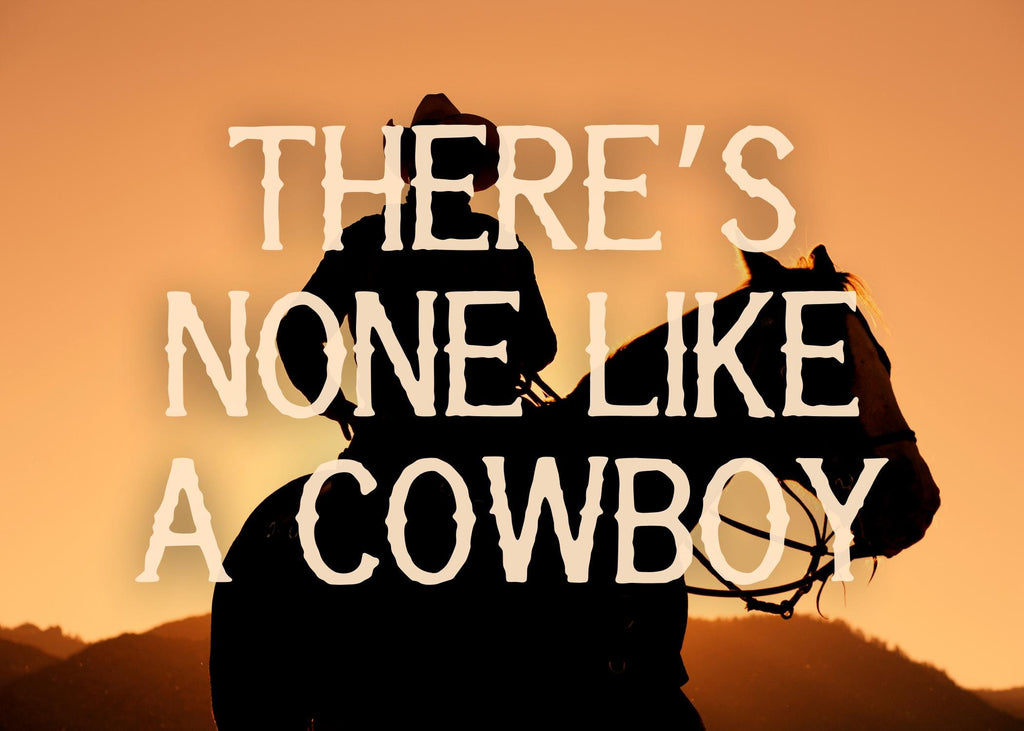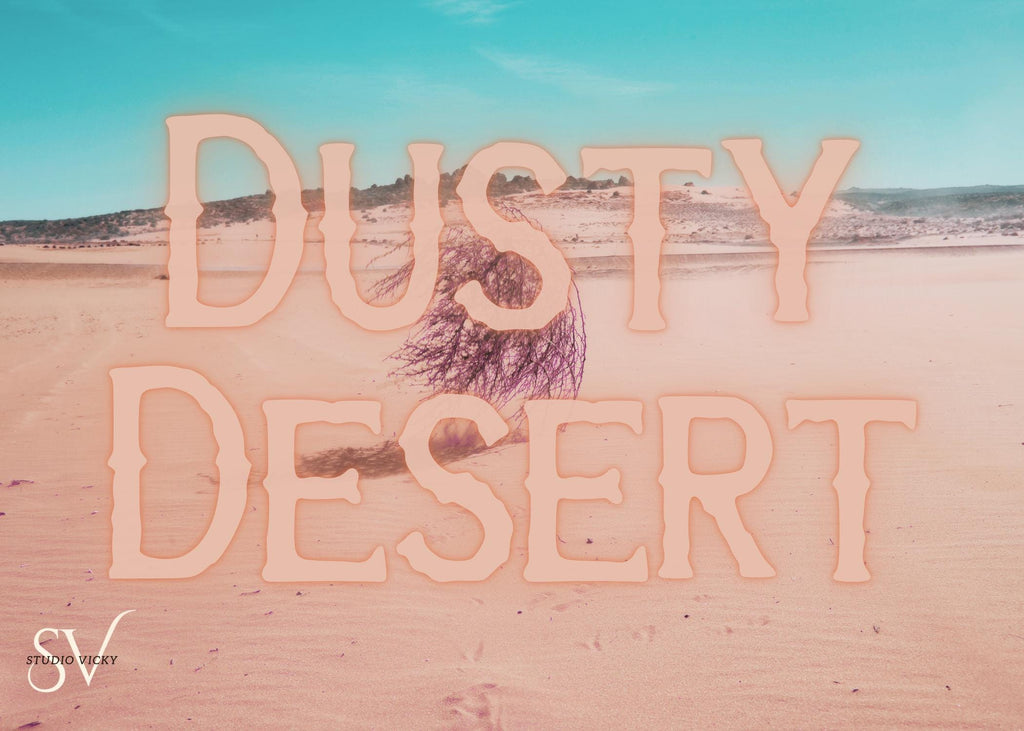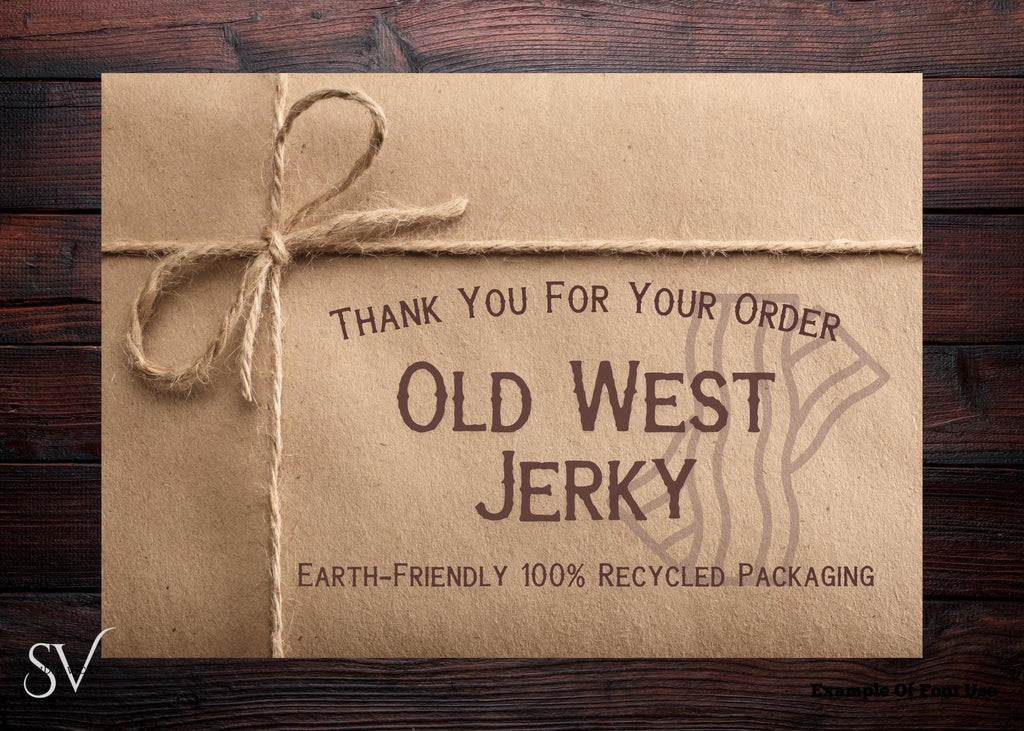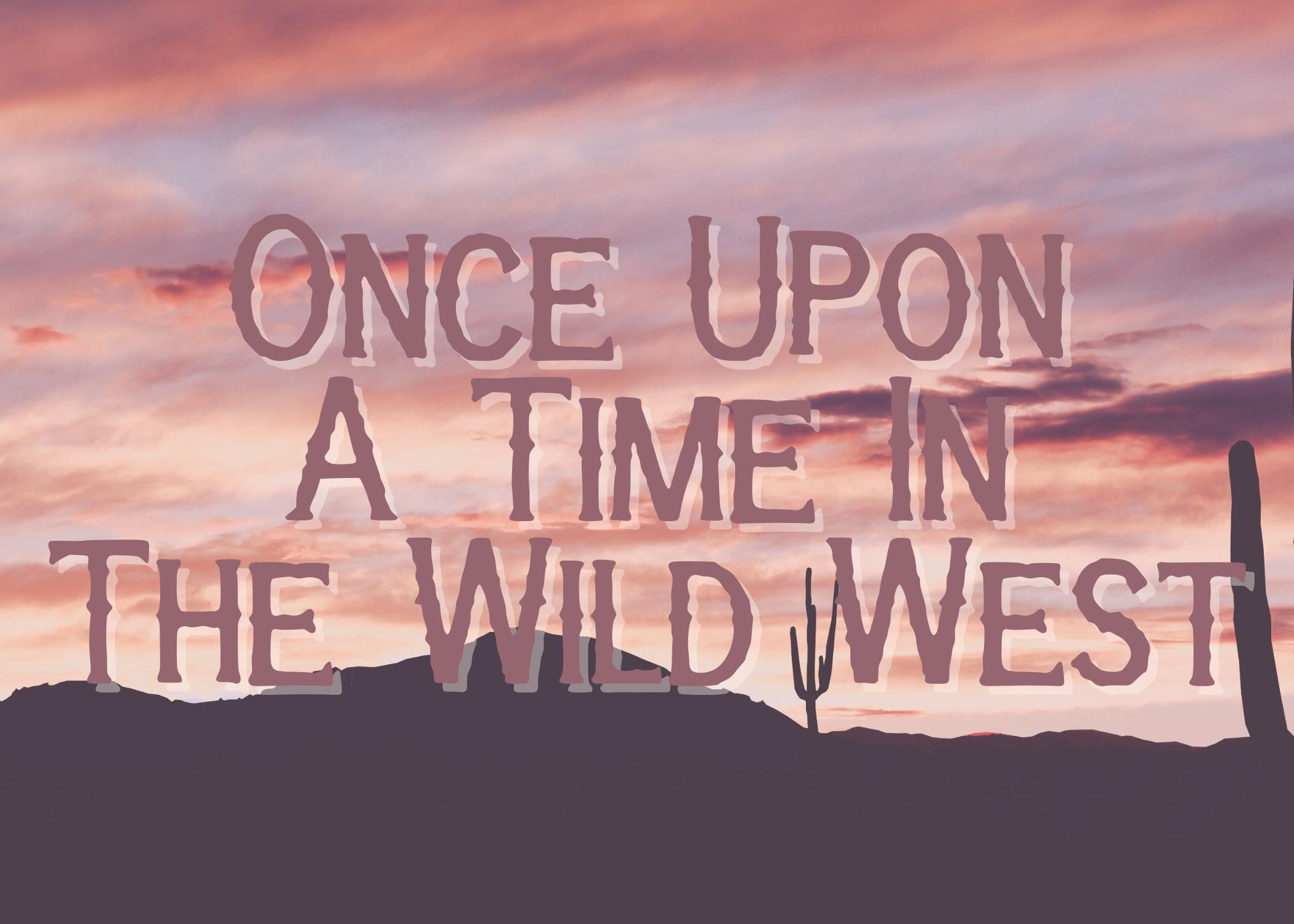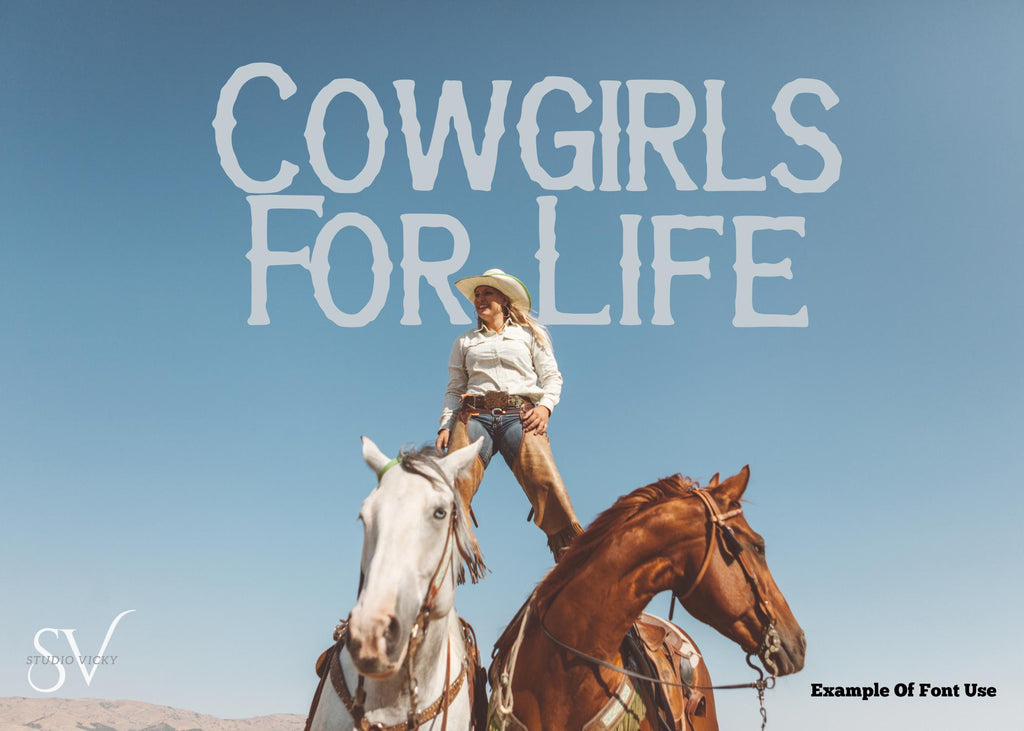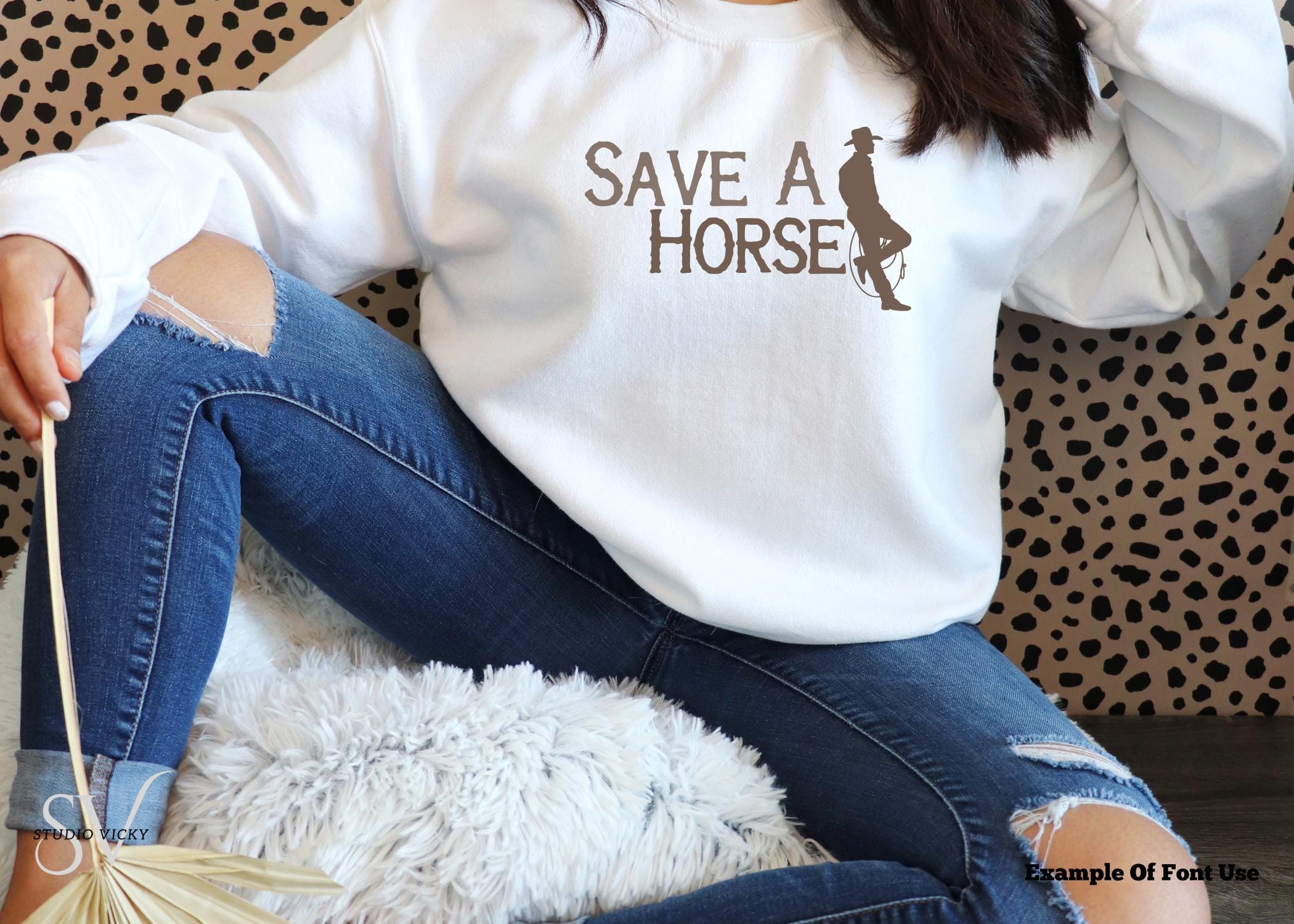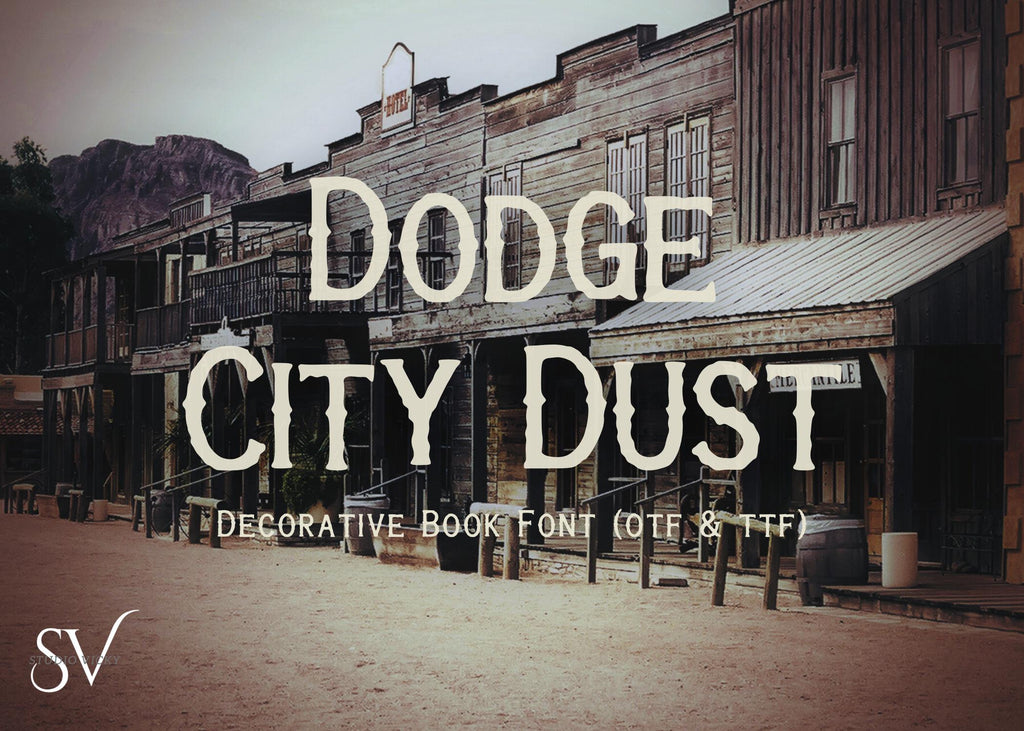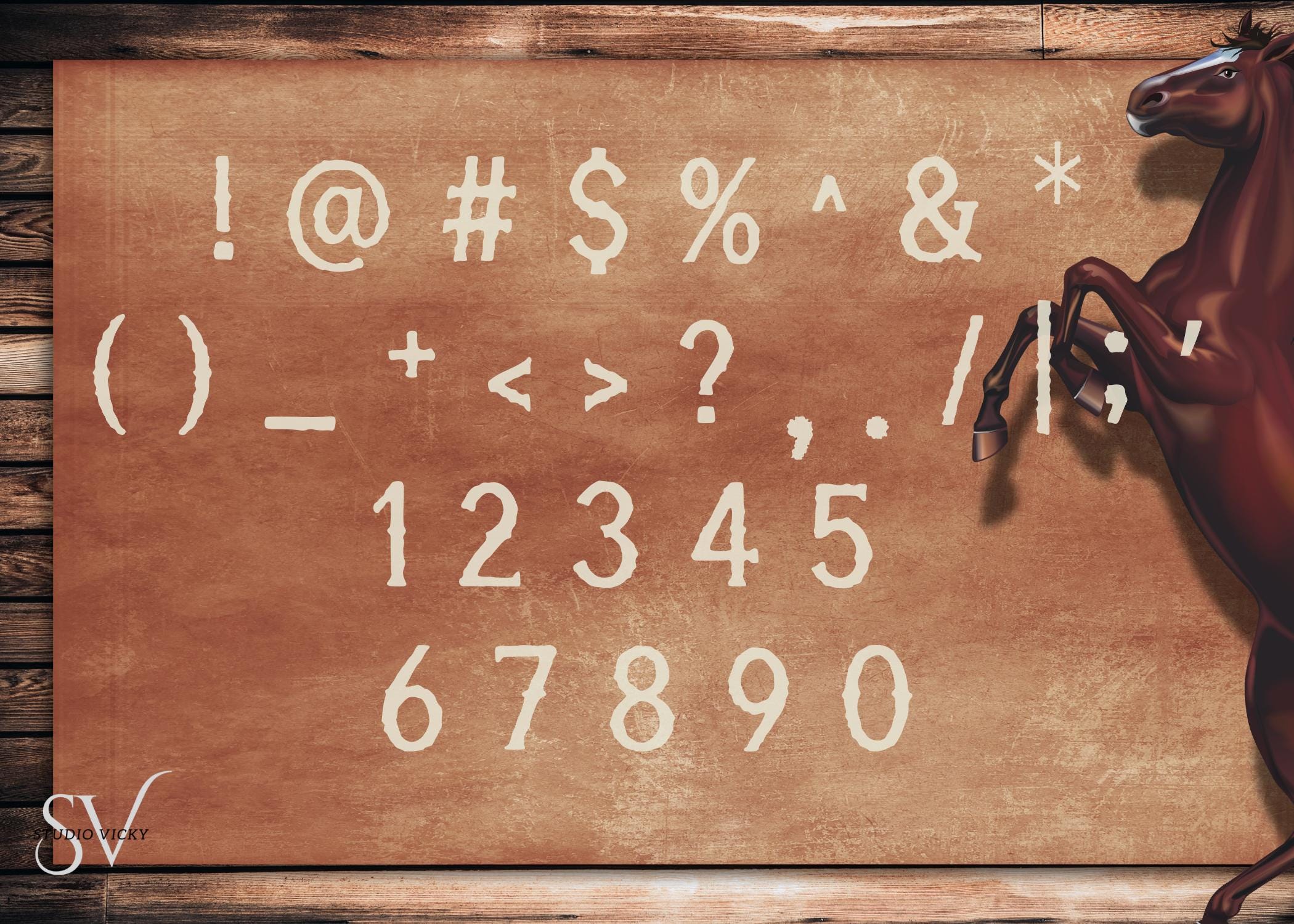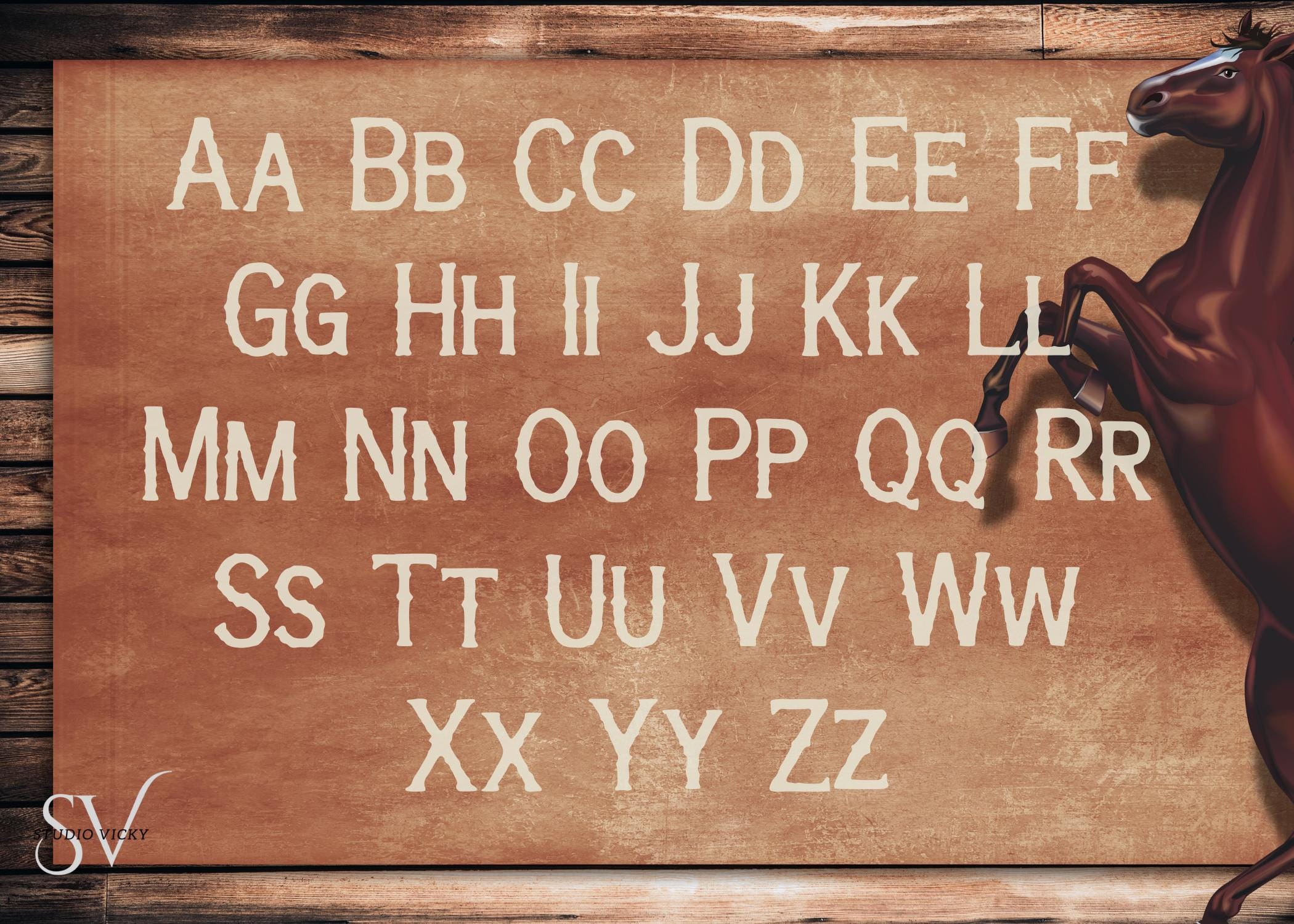
Dodge City Dust Font | Vintage Western Typeface (TTF & OTF)
Kick up some grit and swagger with Dodge City Dust! A rugged vintage Western font inspired by saloon signs, wanted posters, and dusty frontier towns. With bold slab serifs, weathered character, and just the right amount of grit, this font brings cowboy flair to any project.
Perfect for Wild West party invites, cowboy-themed apparel, rodeo flyers, ranch branding, or vintage-style logos, Dodge City Dust is a rootin’-tootin’ typeface with attitude.
Classic Western saloon style
Subtle distressed look for that authentic vintage feel
Great for posters, signage, logos, and themed merchandise
Saddle up and give your designs that frontier spirit with Dodge City Dust—where bold meets old.